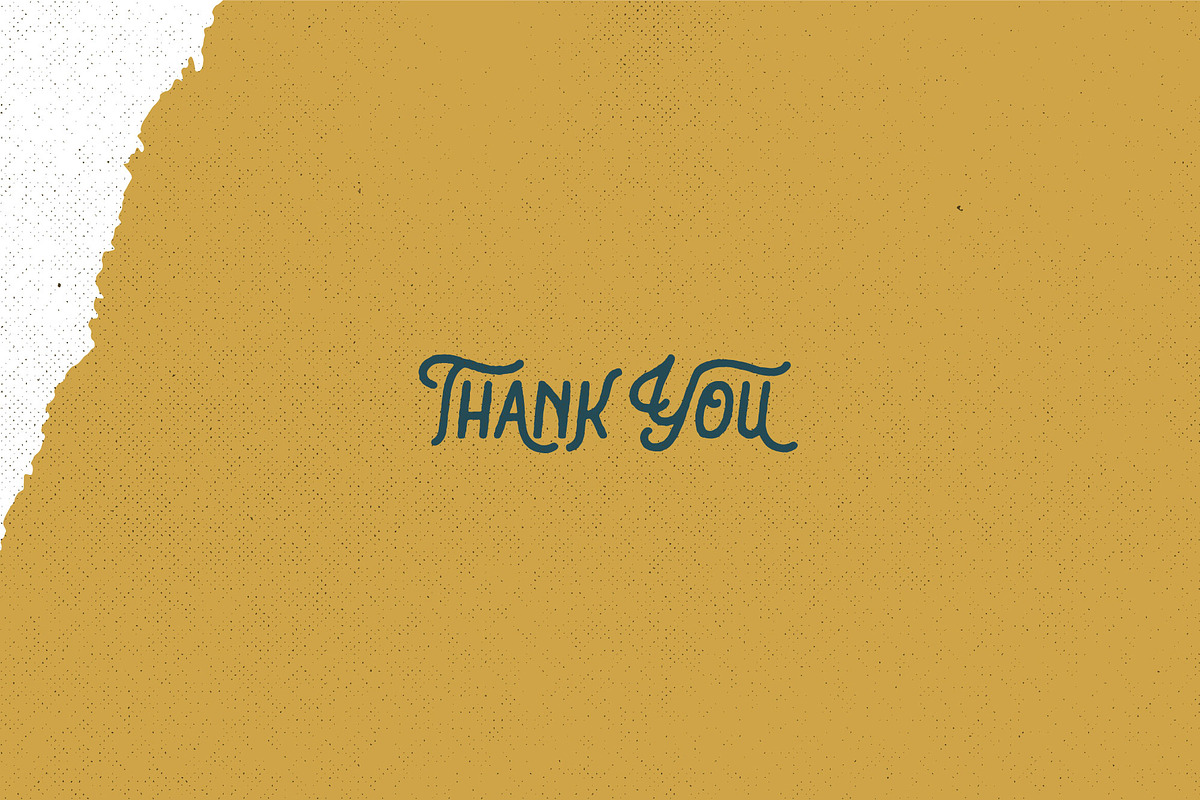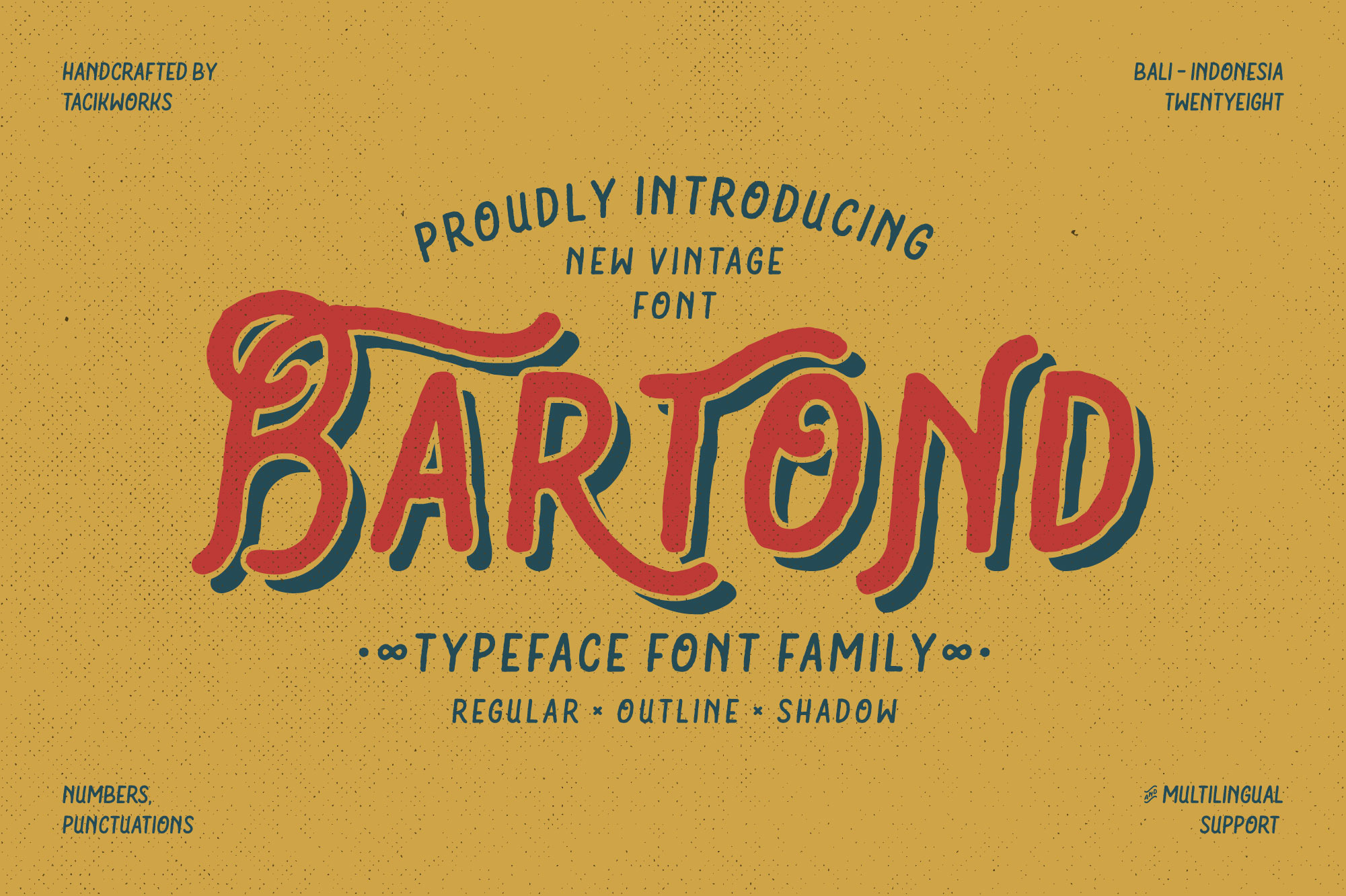
Tacikworks presents the new Vintage Font Family. Bartond typeface font is inspired by vintage designs with rough lines. Make the classic impression of this font stand out more. This font has approximately 219 glyph characters including uppercase, lowercase, discretionary ligatures and standard ligatures alternatives. It is suitable for creating vintage designs such as logo posters, merchandise, clothing, brochures, business cards and others.